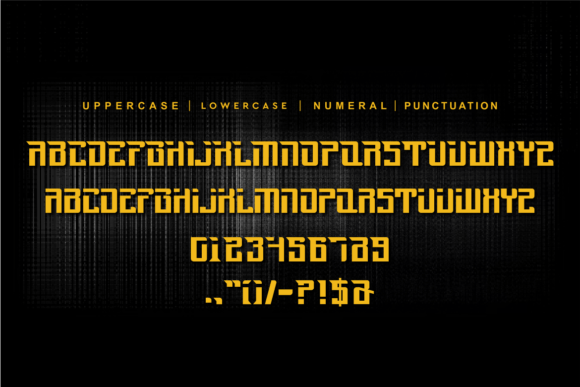
Introduction to Maxim Gaming Font
You know that feeling when you’re working on a creative project and you just can’t seem to find the right font to bring it all together? It’s like the missing piece of a puzzle, and you’re stuck in a design rut. But what if I told you that there’s a font out there that could change all that? Enter the Maxim Gaming Font, a cool and modern display font that’s sure to take your designs to the next level.
Key Features of Maxim Gaming Font
- High-quality design for a creative project, suitable for gaming and entertainment-related themes.
- Unique, bold, and modern design elements, perfect for adding a touch of sophistication to your gaming-related project.
- Comprehensive character set, including uppercase and lowercase letters, numbers, and special characters.
- Designed to be versatile, suitable for a wide range of creative projects, from logos and branding to digital art and graphics.
Honest Review: Maxim Gaming Font
I recently stumbled upon the Maxim Gaming Font and I must say it’s a great addition to any design project. The font’s sleek and modern design makes it perfect for any creative project that needs a high quality font.
Here are some of the things that work well with the Maxim Gaming Font:
- High quality design that’s perfect for gaming and tech-related projects
- Transparent background makes it easy to use in any design
- Not ideal for projects that require a lot of font variations (only a few styles available)
- May not be suitable for designs that require a lot of bold or italic text
Overall, I think the Maxim Gaming Font is a solid choice for any design project that needs a modern and sleek font. With its high quality design and transparent background, it’s a great resource to have in your design arsenal.
Maxim Gaming Font
Tips for Getting the Most Out of the Maxim Gaming Font
For the best results, use the Maxim Gaming Font in conjunction with other design elements that complement its style. Experiment with different font sizes and colors to create a unique and eye-catching design. Additionally, consider using the font in a creative project that showcases its high-quality design.
The Maxim Gaming Font is a versatile design resource that can be used in a variety of projects, including logo design, graphic design, and presentation design. Its high-quality design and transparent background make it a great choice for creating professional-looking designs that stand out from the crowd.
Alternatives to Maxim Gaming Font
1. Pixel Perfect Font
Pixel Perfect Font is a high-quality font designed for creative projects that require a retro gaming feel. It’s perfect for designers who want to add a touch of nostalgia to their designs. This font is available for free download and features a transparent background, making it easy to use in various design scenarios.
Compared to Maxim Gaming Font, Pixel Perfect Font has a more pixelated look, making it ideal for projects that require a more authentic retro aesthetic. It’s a great alternative for designers who want to add a unique touch to their designs.
So why not give it a try? Download the Maxim Gaming Font today and discover a whole new world of design possibilities. With its free download option, you can start experimenting and pushing the boundaries of your creativity without any financial constraints. Whether you’re a seasoned designer or just starting out, the Maxim Gaming Font is sure to inspire and empower you to create something truly remarkable. Don’t miss out on this amazing opportunity – download the Maxim Gaming Font now and unlock your full design potential!